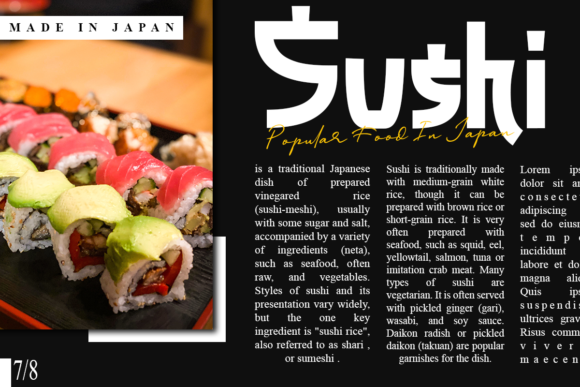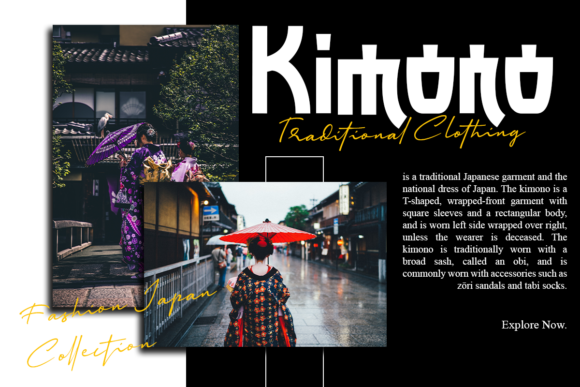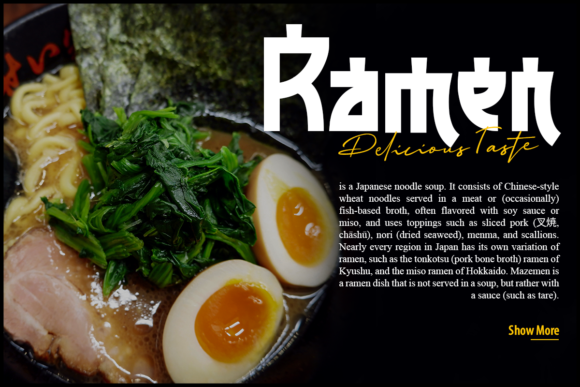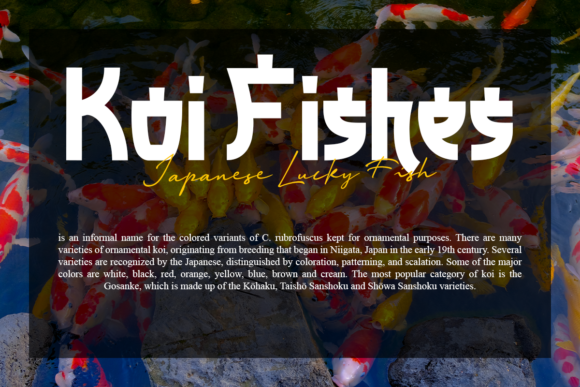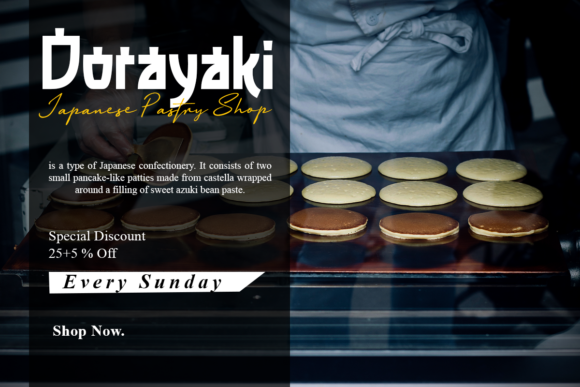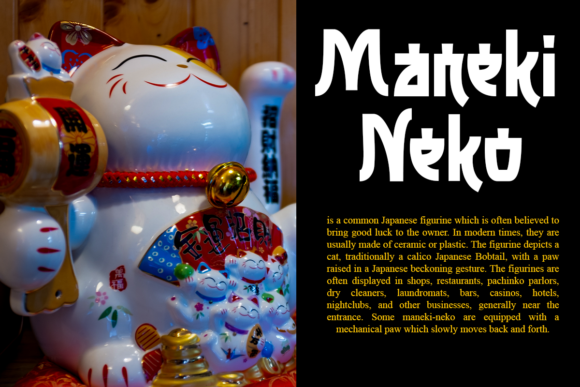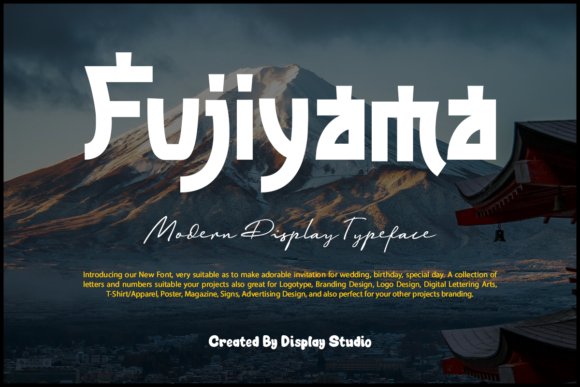
Fujiyama Font: A Unique Japanese-Inspired Display Font for Your Designs
Are you looking for a font that will make your designs stand out? Look no further than the Fujiyama Font, an incredibly unique and Japanese-inspired display font that’s perfect for food menus, posters, flyers, and prints. With its stunning aesthetic and endless possibilities, Fujiyama Font is a must-have for designers and crafters alike.
What is Fujiyama Font?
Fujiyama Font is a display font that draws inspiration from Japanese typography and design. Its unique and elegant style makes it perfect for adding a touch of sophistication to any design project. The font features bold and intricate strokes, creating a visually appealing effect that’s sure to grab attention.
Key Features of Fujiyama Font
- Unique and Elegant Style: Fujiyama Font boasts a distinctive and refined aesthetic that’s perfect for designs that require a touch of Japanese flair.
- Display Font: This font is specifically designed for display purposes, making it ideal for headlines, titles, and short texts.
- Food Menu Friendly: The Fujiyama Font is perfect for food menus, adding a touch of authenticity and cultural flair to your culinary designs.
- Multipurpose: This font can be used for a variety of design projects, including posters, flyers, prints, and more.
Why Use Fujiyama Font?
There are many reasons why designers and crafters should consider using Fujiyama Font in their projects. Here are just a few:
- Add a Touch of Japanese Culture: Fujiyama Font allows you to incorporate a touch of Japanese culture and aesthetics into your designs, making them stand out and appear more authentic.
- Enhance Your Brand: The unique and elegant style of Fujiyama Font can help elevate your brand and make it more memorable.
- Easy to Read: Despite its intricate design, Fujiyama Font is easy to read and understand, making it perfect for display purposes.
- Endless Possibilities: With Fujiyama Font, the possibilities are endless. Use it for food menus, posters, flyers, prints, and more to create stunning designs.
How to Use Fujiyama Font
Using Fujiyama Font in your designs is easy. Here are a few tips to get you started:
- Pair it with Other Fonts: Combine Fujiyama Font with other fonts to create a unique and visually appealing effect.
- Experiment with Colors: Try out different colors and color combinations to find the perfect match for your design.
- Play with Sizes: Experiment with different font sizes to create visual hierarchy and add emphasis to your design.
Here are a few tips for designers and crafters looking to get the most out of Fujiyama Font:
- Use it for Food-Related Designs: Fujiyama Font is perfect for food menus, restaurant branding, and food-related designs.
- Combine it with Japanese-Inspired Imagery: Pair Fujiyama Font with Japanese-inspired imagery, such as cherry blossoms or sushi, to create a cohesive and authentic design.
- Experiment with Different Formats: Try using Fujiyama Font in different formats, such as posters, flyers, and prints, to see how it works in different contexts.
Fujiyama Font is an incredibly unique and Japanese-inspired display font that’s perfect for designers and crafters looking to add a touch of elegance and sophistication to their designs. With its stunning aesthetic and endless possibilities, Fujiyama Font is a must-have for any design project. Try it out today and explore the many creative possibilities it has to offer!